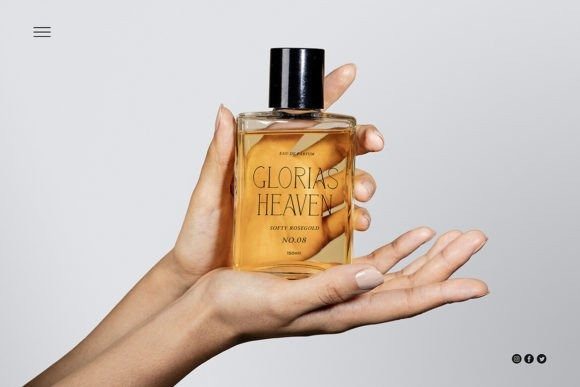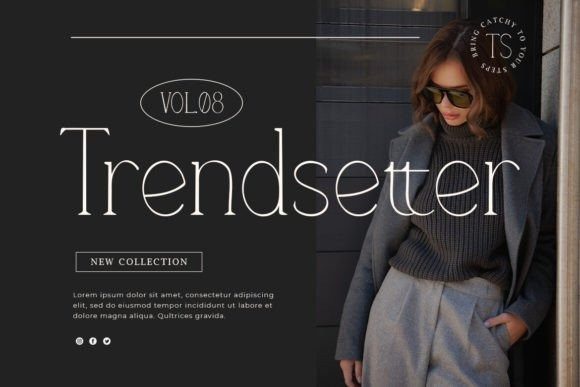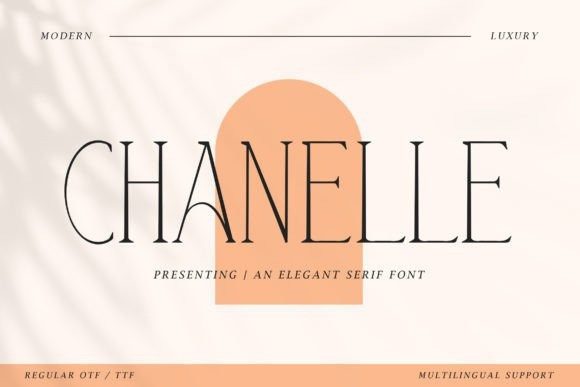
Chanelle Font
Chanelle Font an elegant serif font that epitomizes sophistication and refinement with its timeless design and graceful letterforms.With its delicate serifs and stylish curves, “Chanelle” exudes an air of elegance and class in every character. Each letter is meticulously crafted to convey a sense of luxury and prestige, making it perfect for high-end branding, editorial design, wedding invitations, and more.
Embrace the timeless beauty of “Chanelle” as it effortlessly elevates your designs to new heights of elegance. Whether you’re creating luxurious logos, exquisite editorial layouts, elegant invitations, or captivating social media graphics, this font will captivate your audience with its refined and sophisticated style.
Step into a world of timeless elegance with “Chanelle” and let your designs exude sophistication and grace.